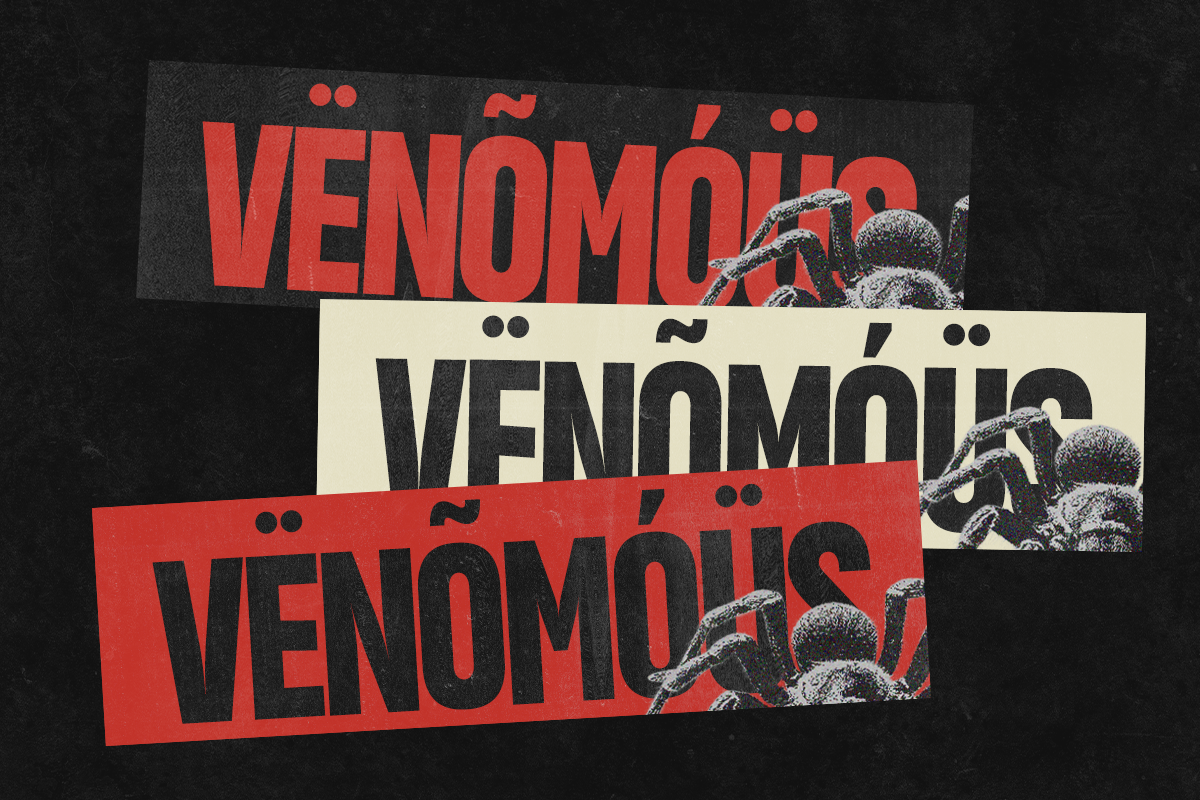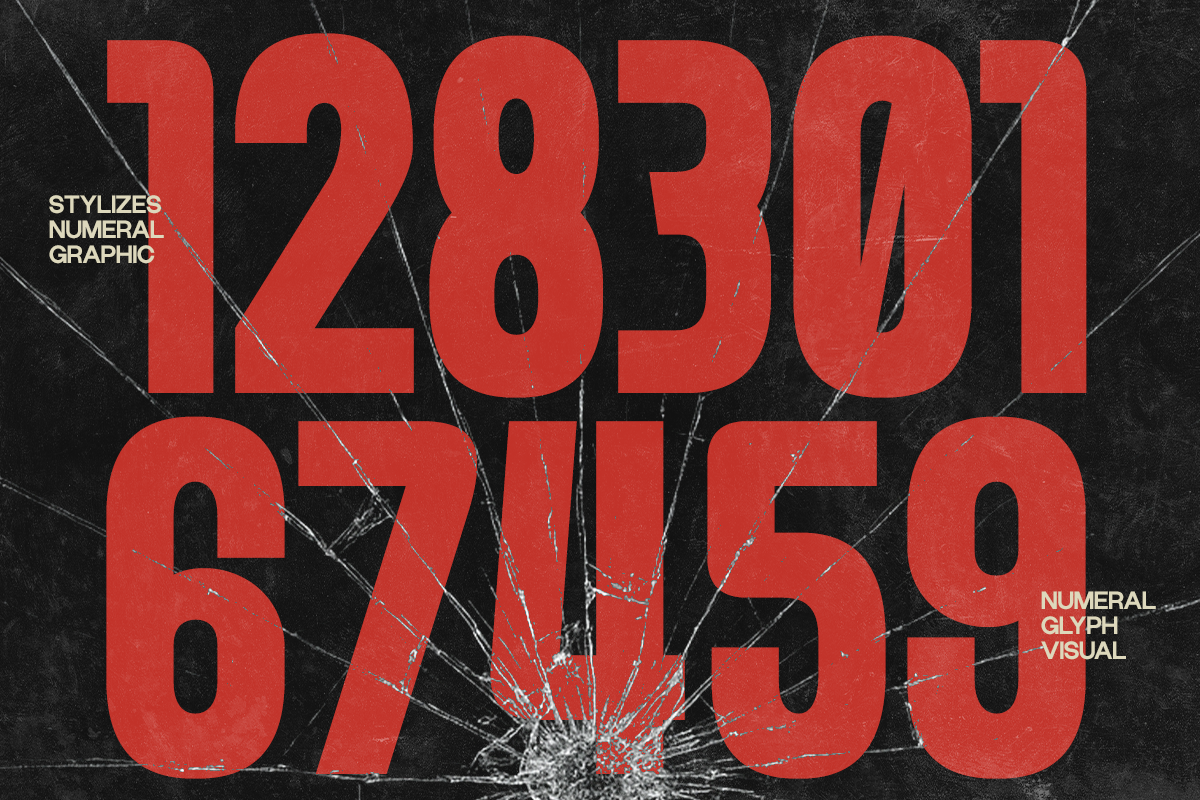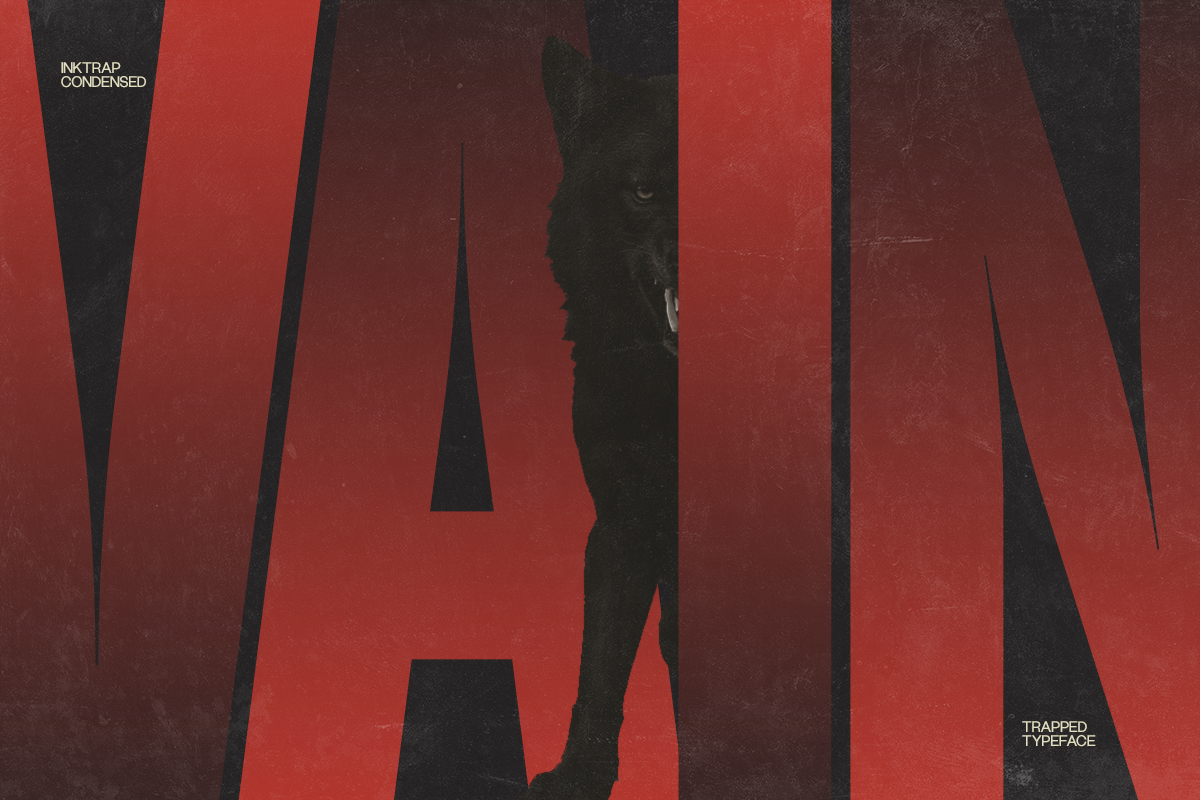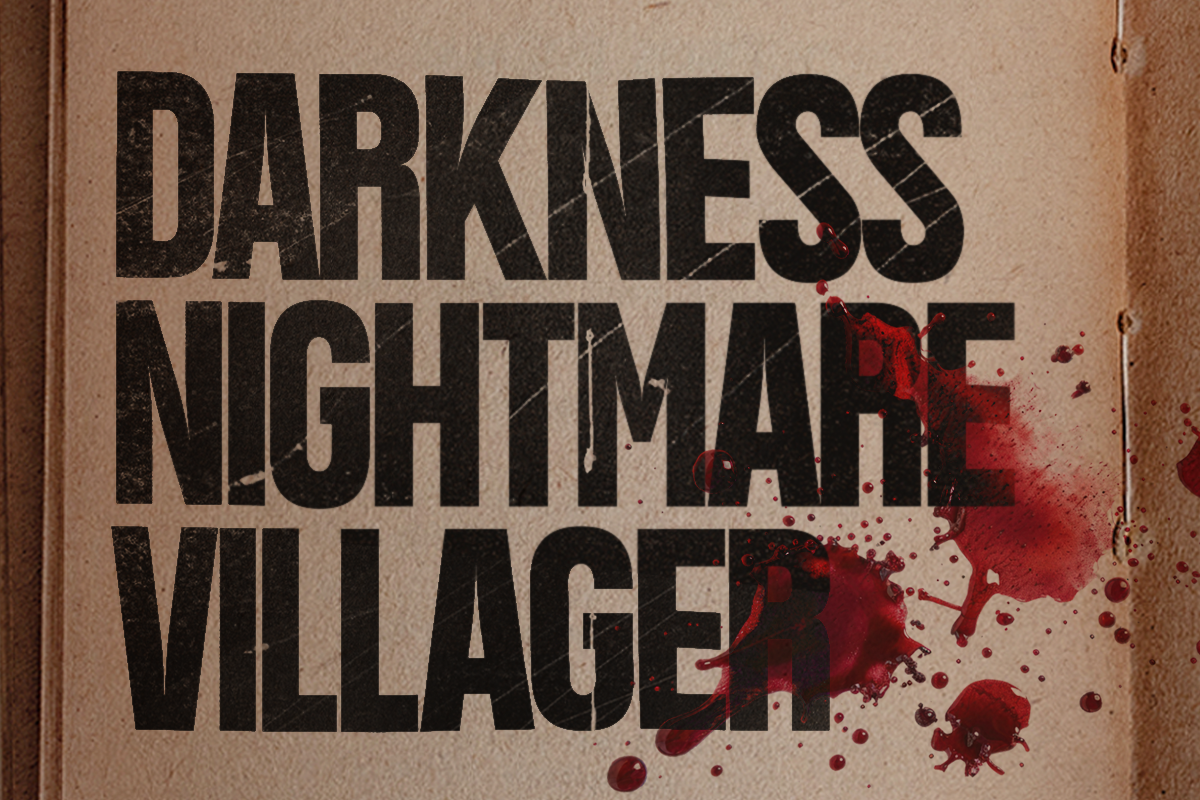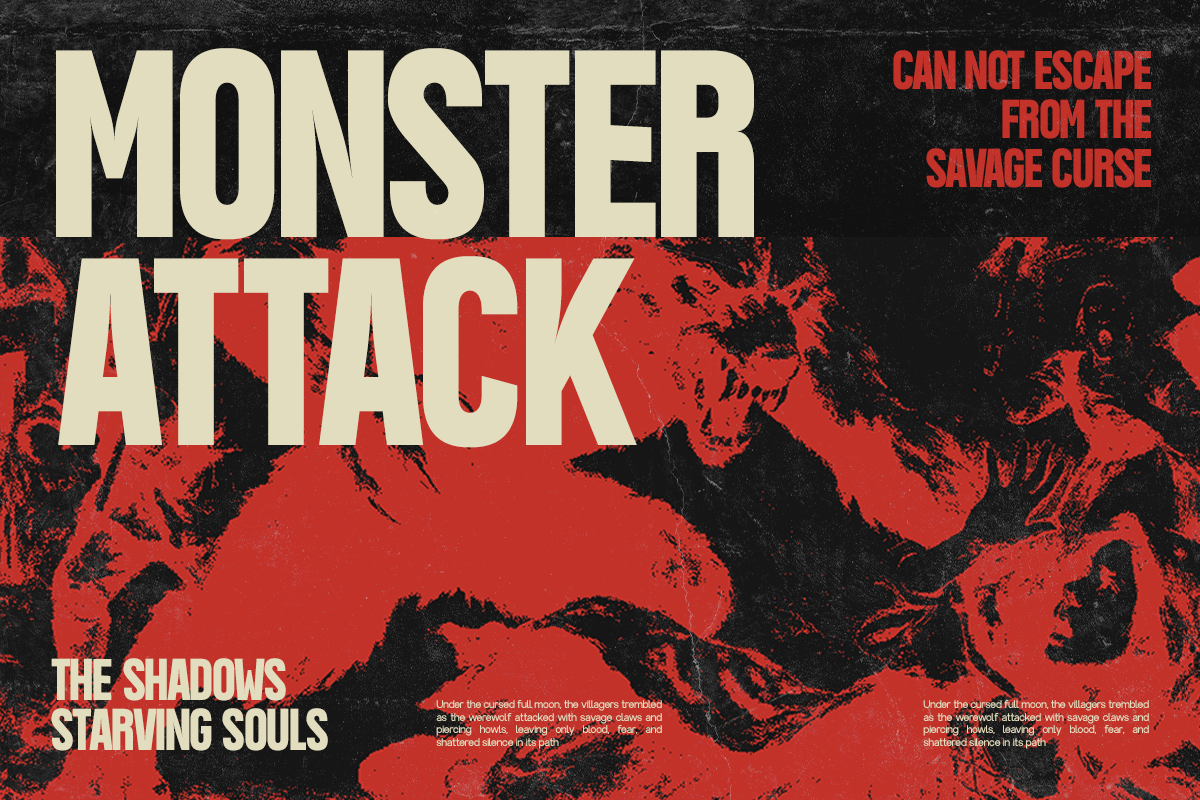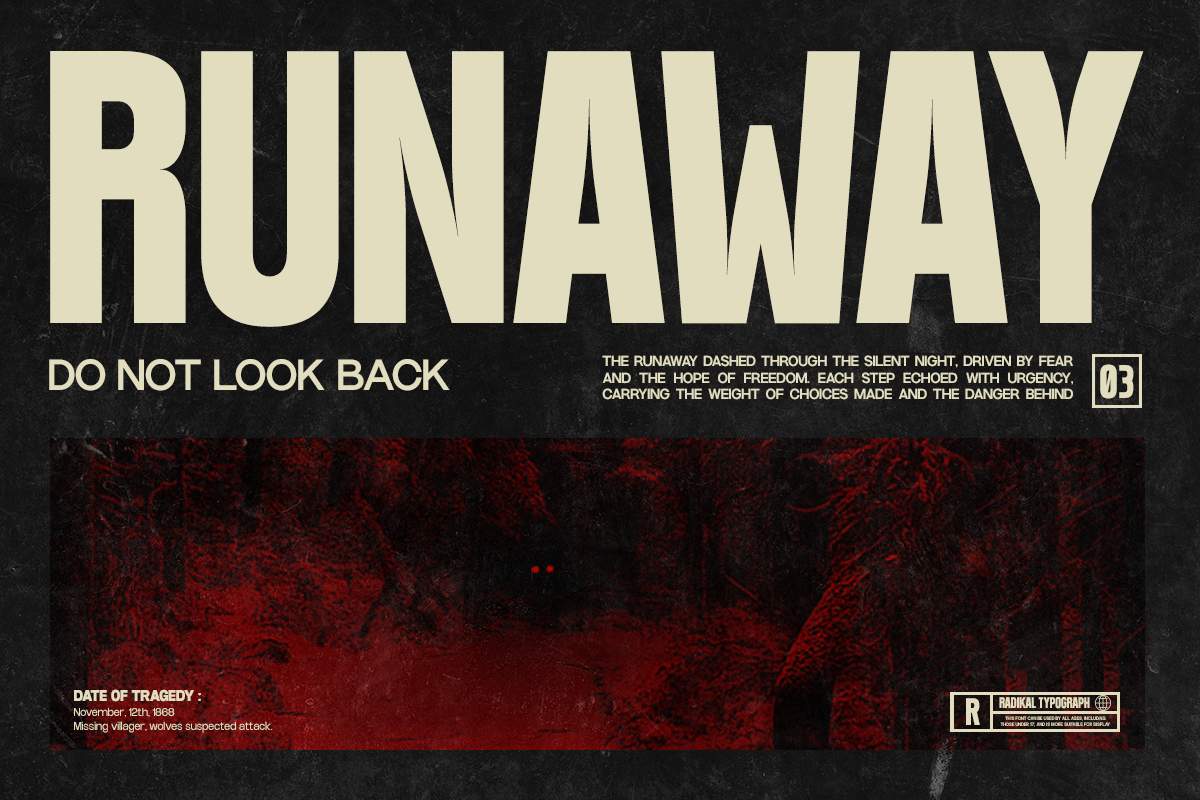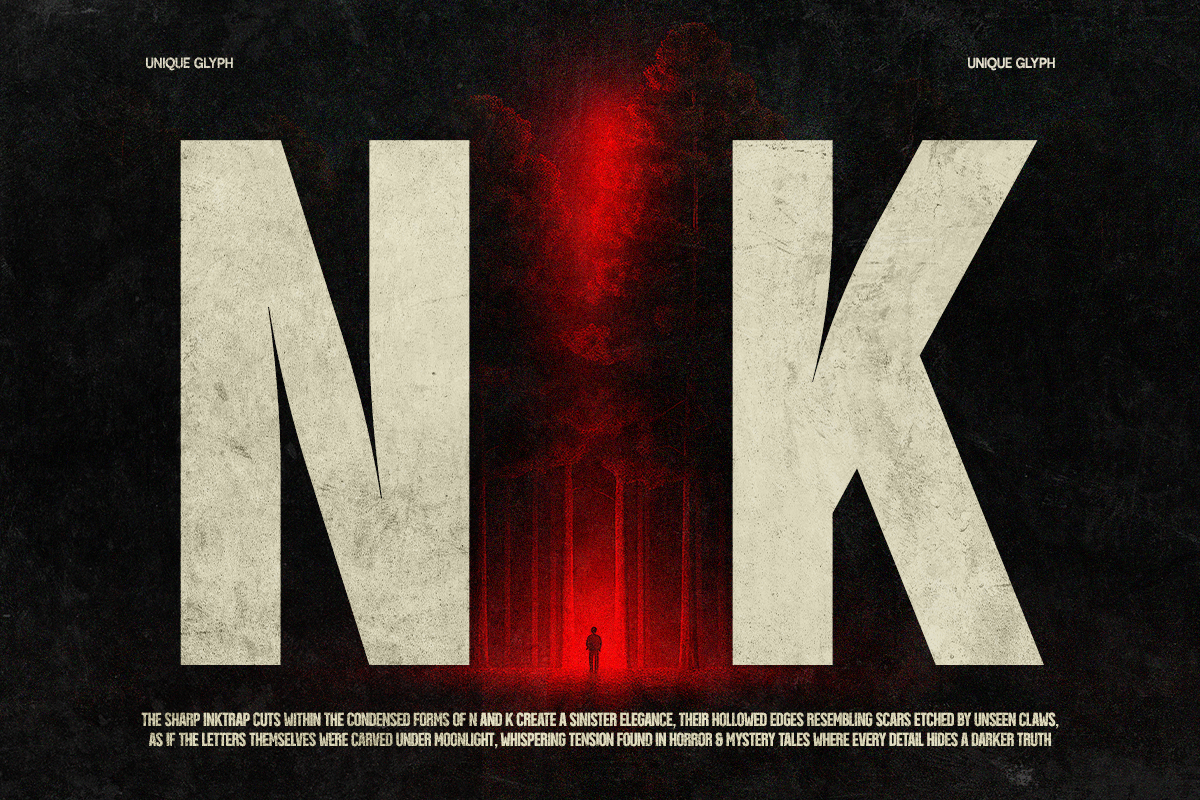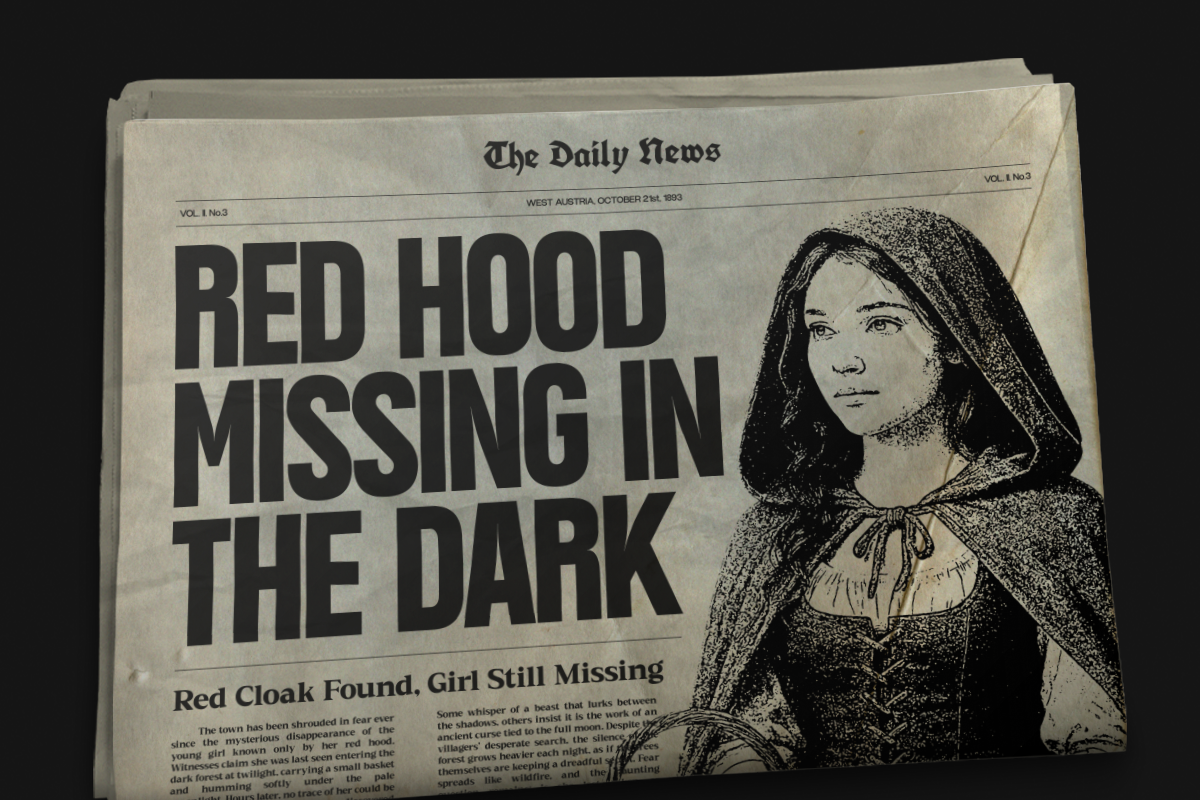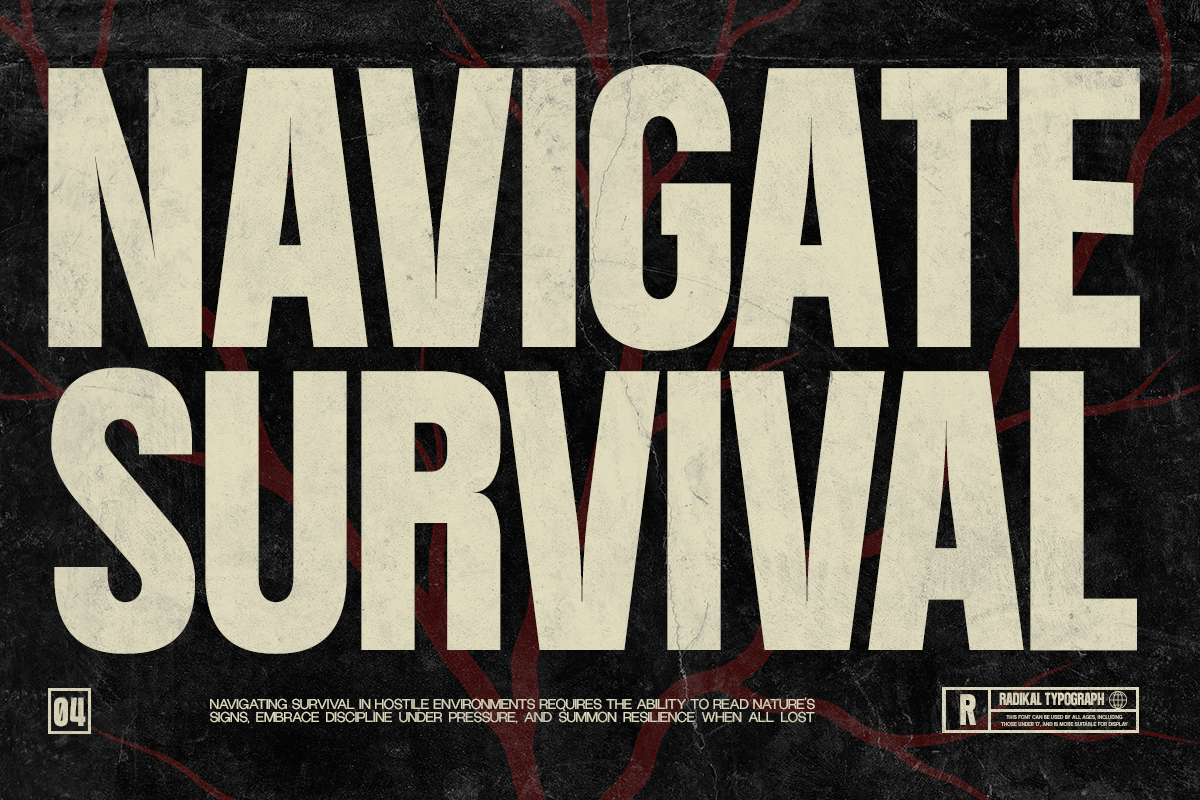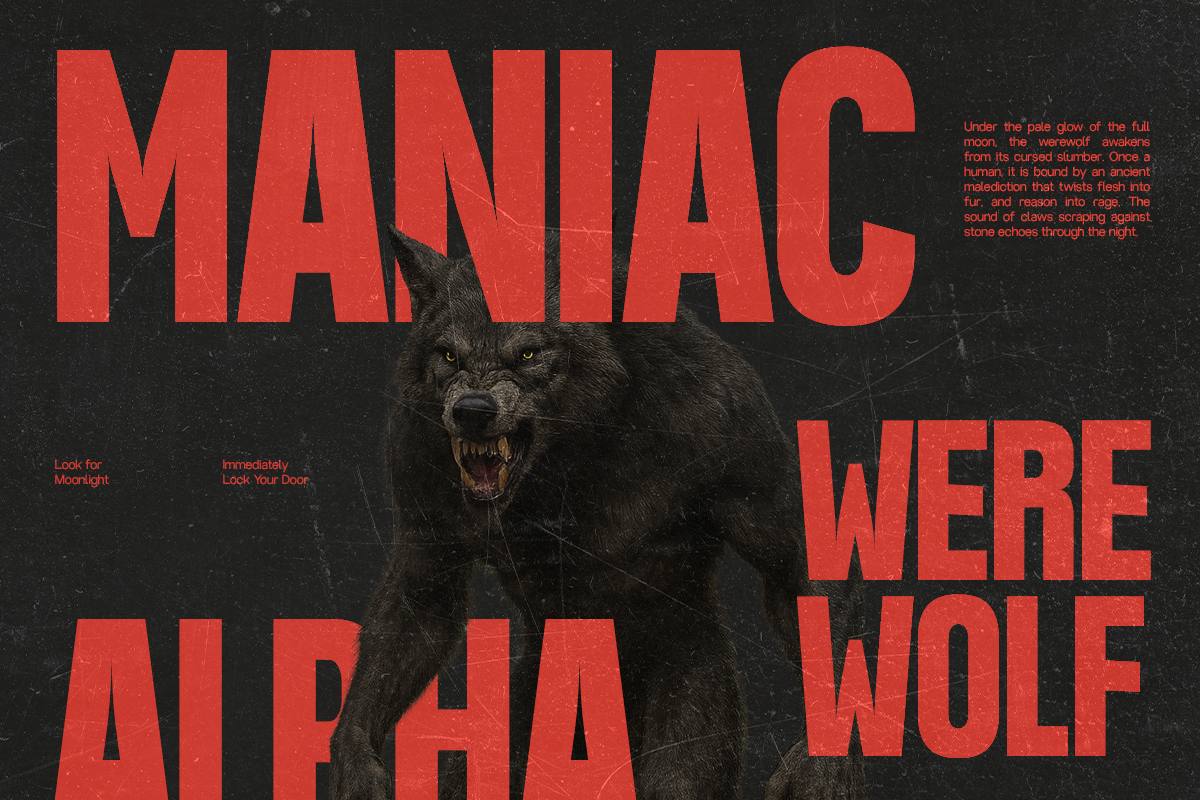
GC Vank - Strong Bold Condensed
GC Vank is a powerful condensed sans serif crafted for bold impact and modern versatility. With its strong weight, clean structure, and confident presence, it delivers striking typography that works seamlessly across digital and print media. Designed to embody strength without losing style, it’s perfect for branding, posters, packaging, sports graphics, and impactful headlines.
Balanced proportions and precise detailing make GC Vank adaptable yet distinctive. Whether you’re building bold titles, sleek interfaces, or dynamic layouts, this font adds power, clarity, and modern energy to your design.
- Strong Condensed Build
Bring bold strength and modern confidence to your typography with GC Vank.